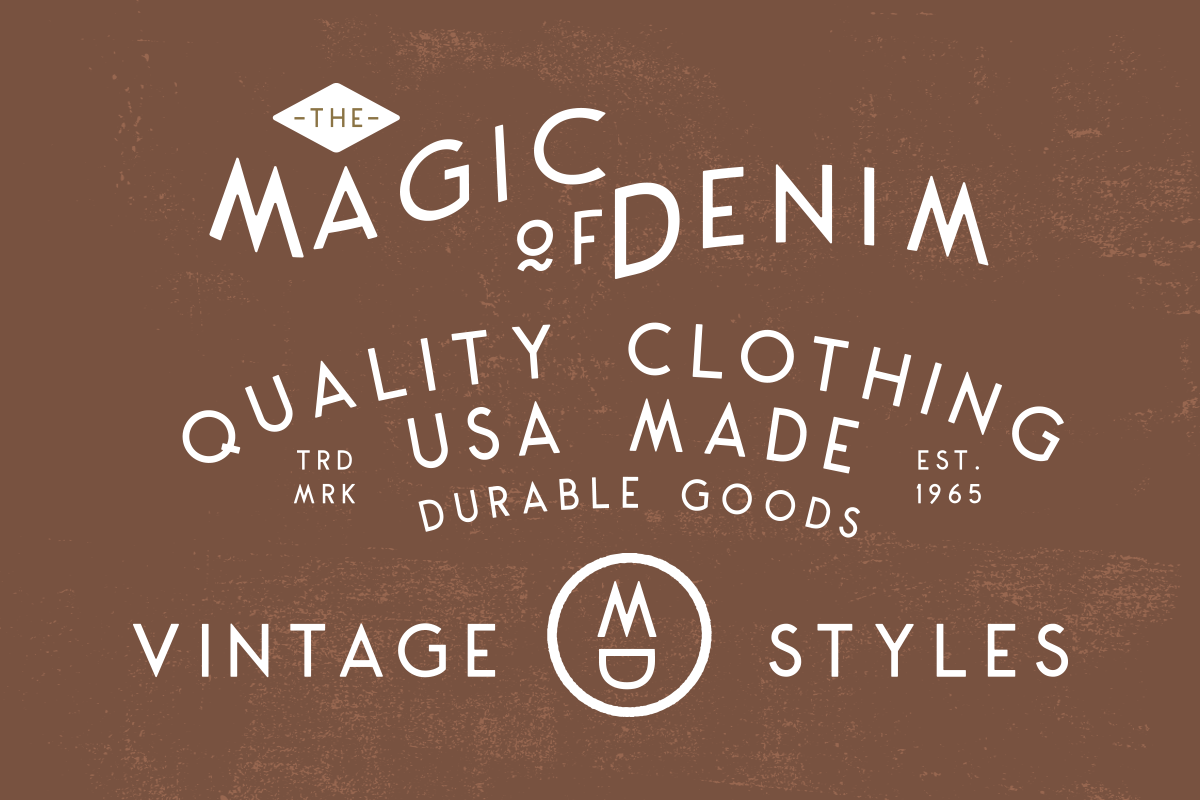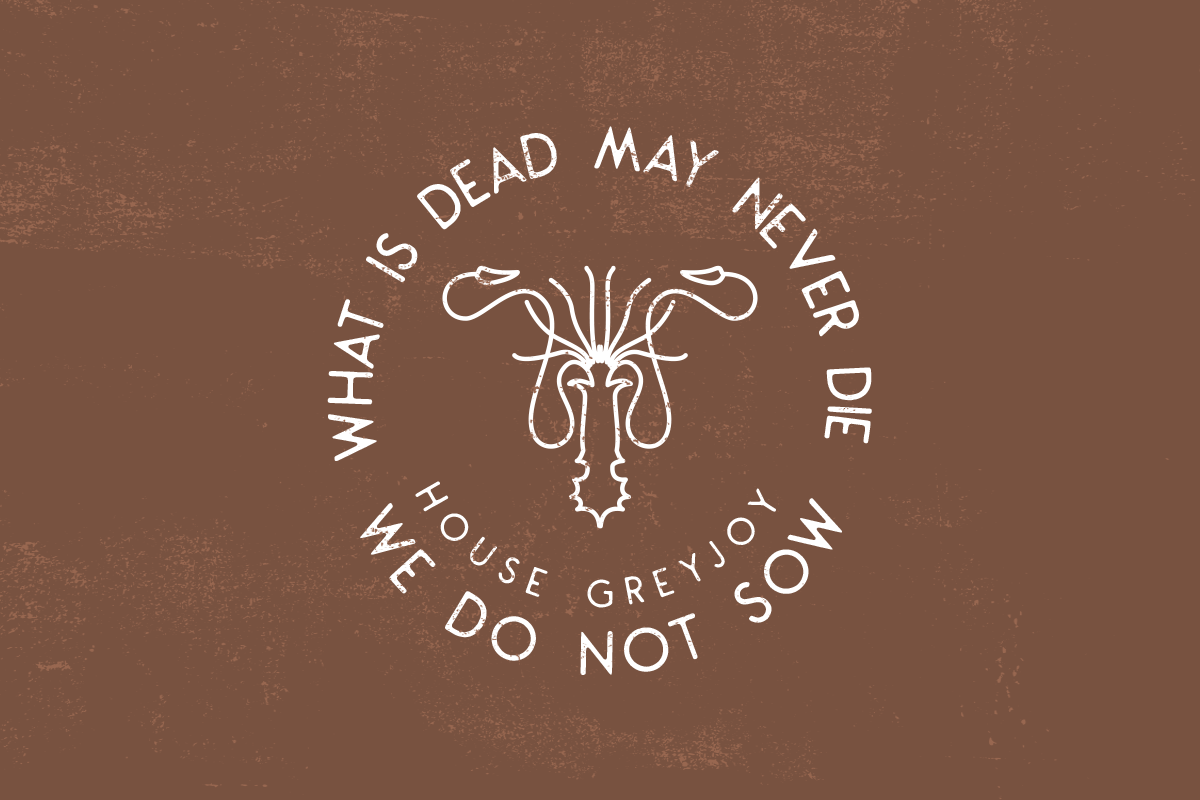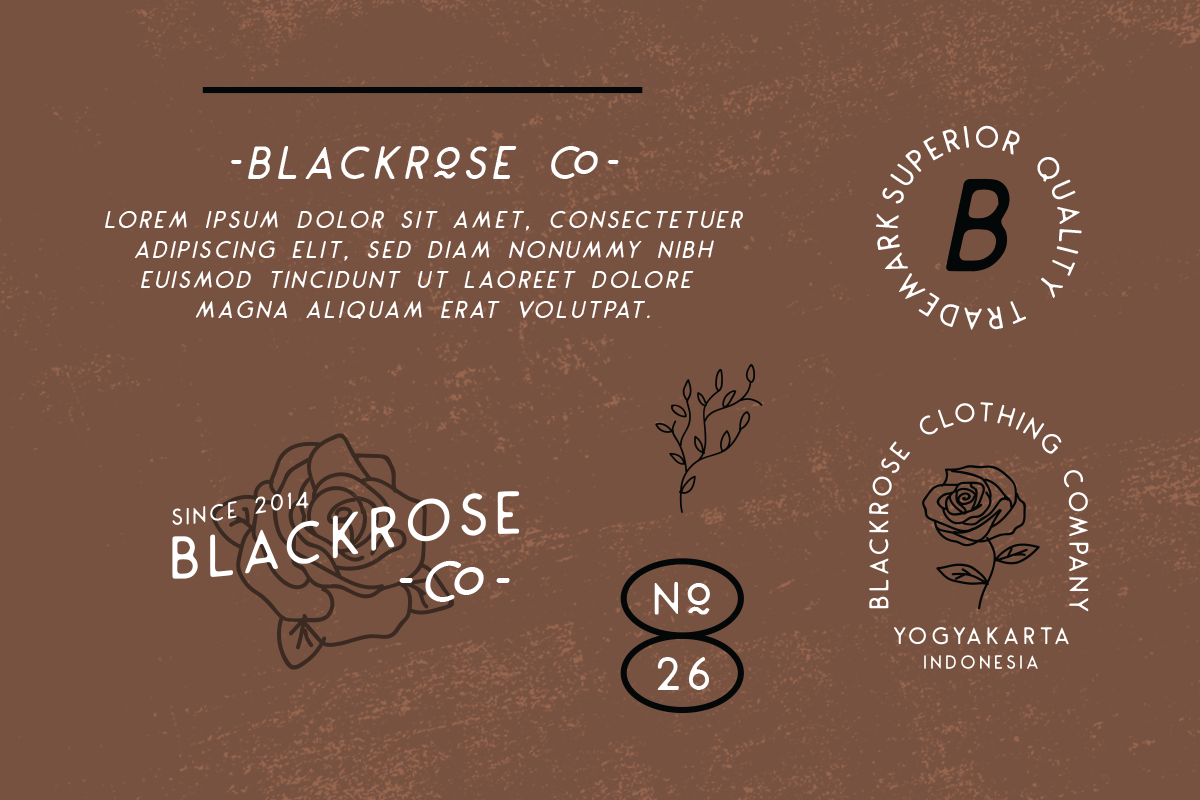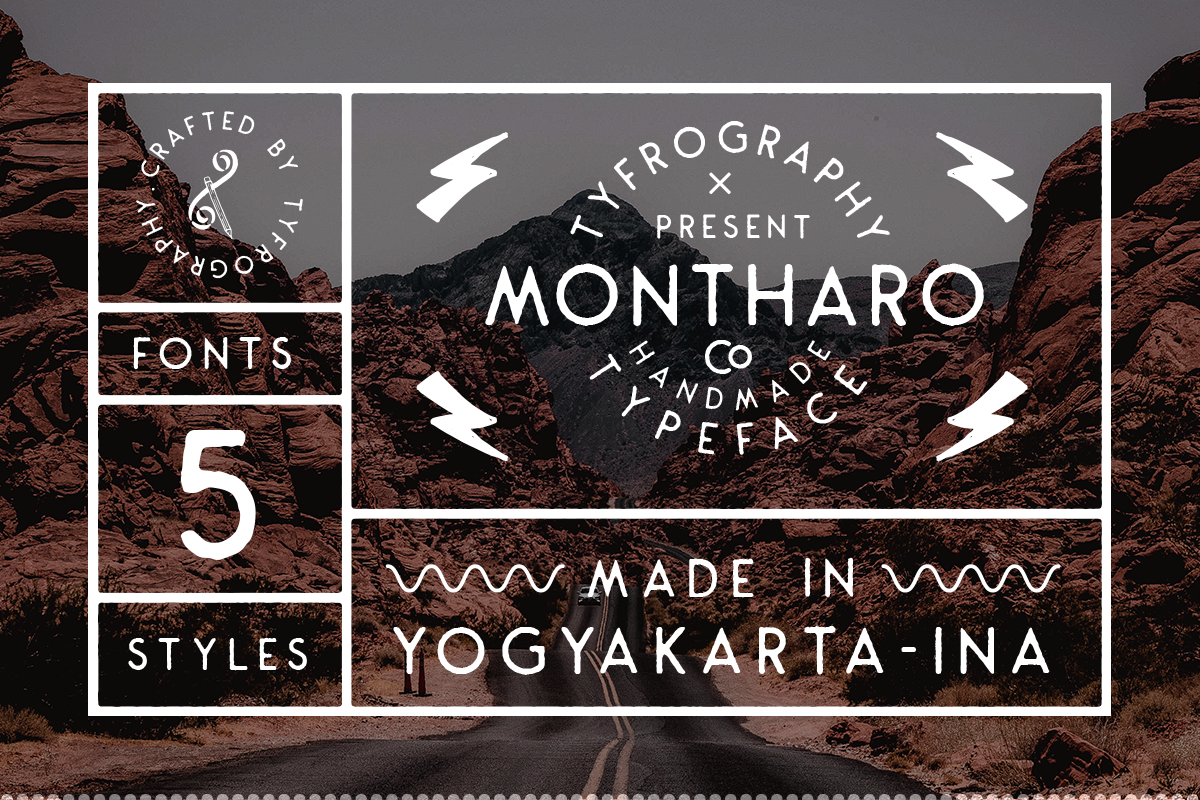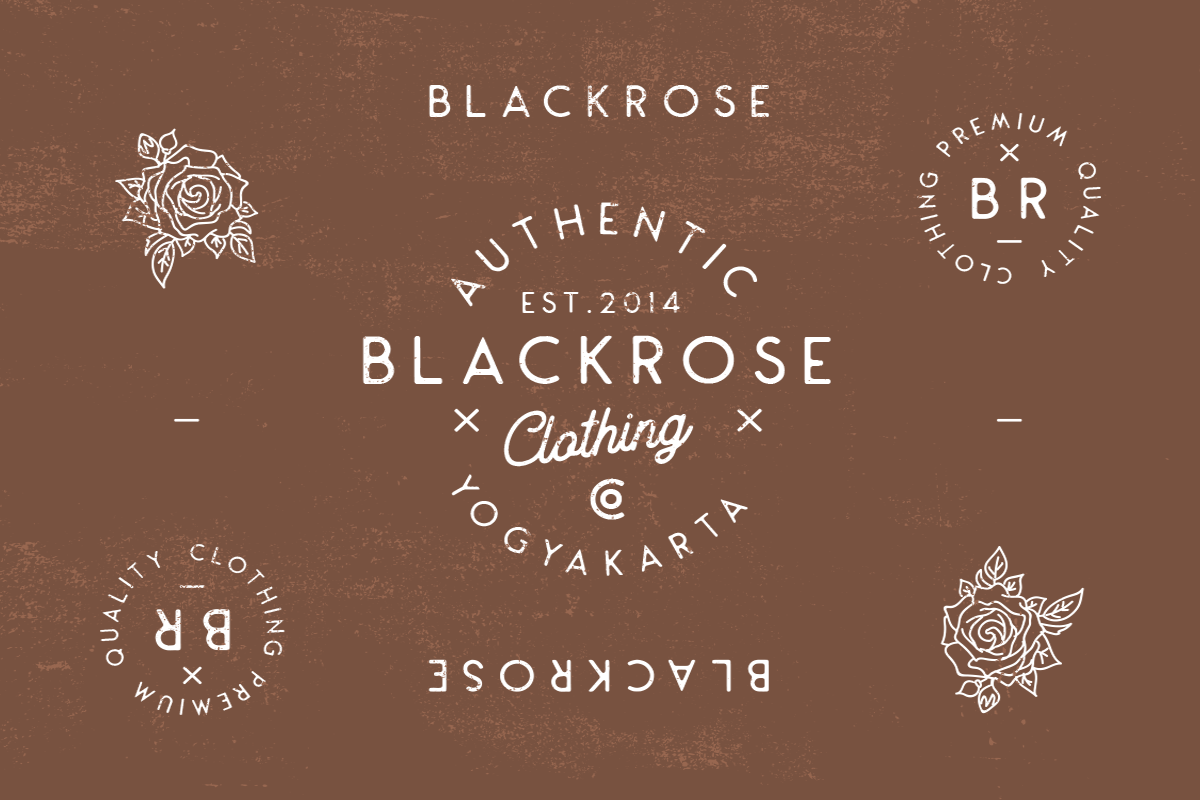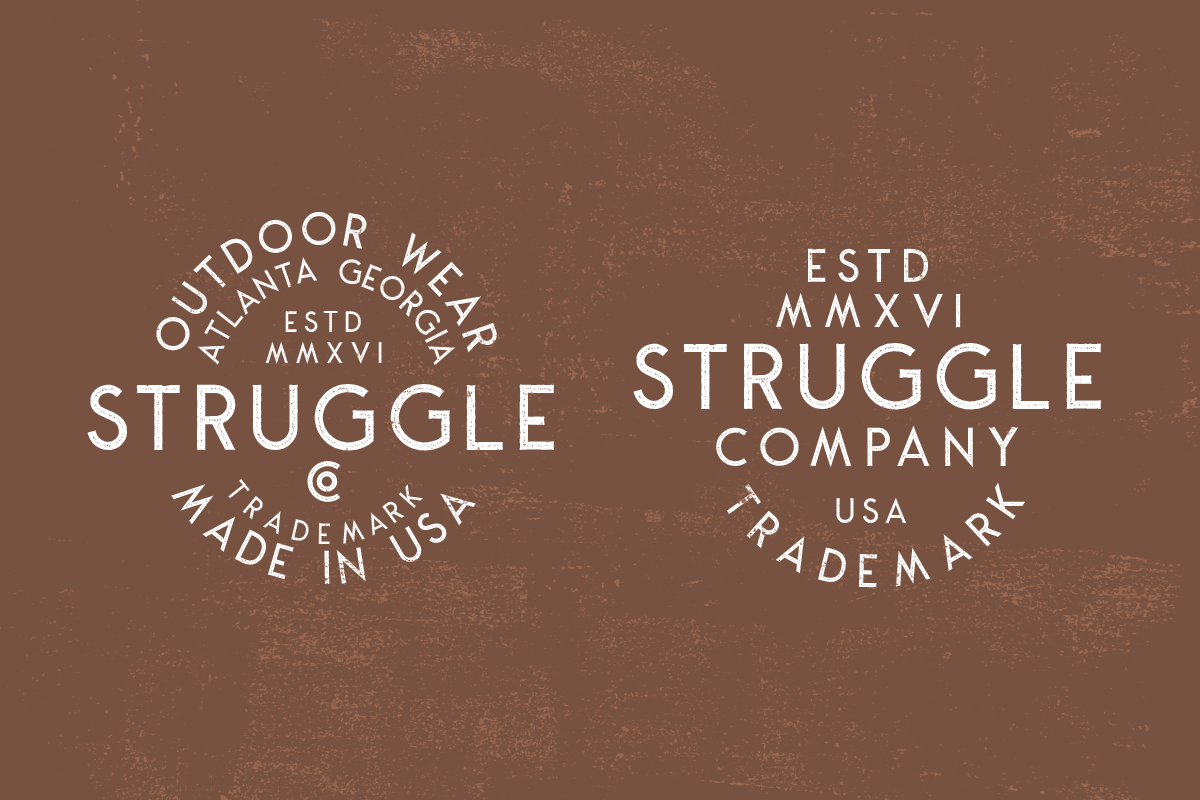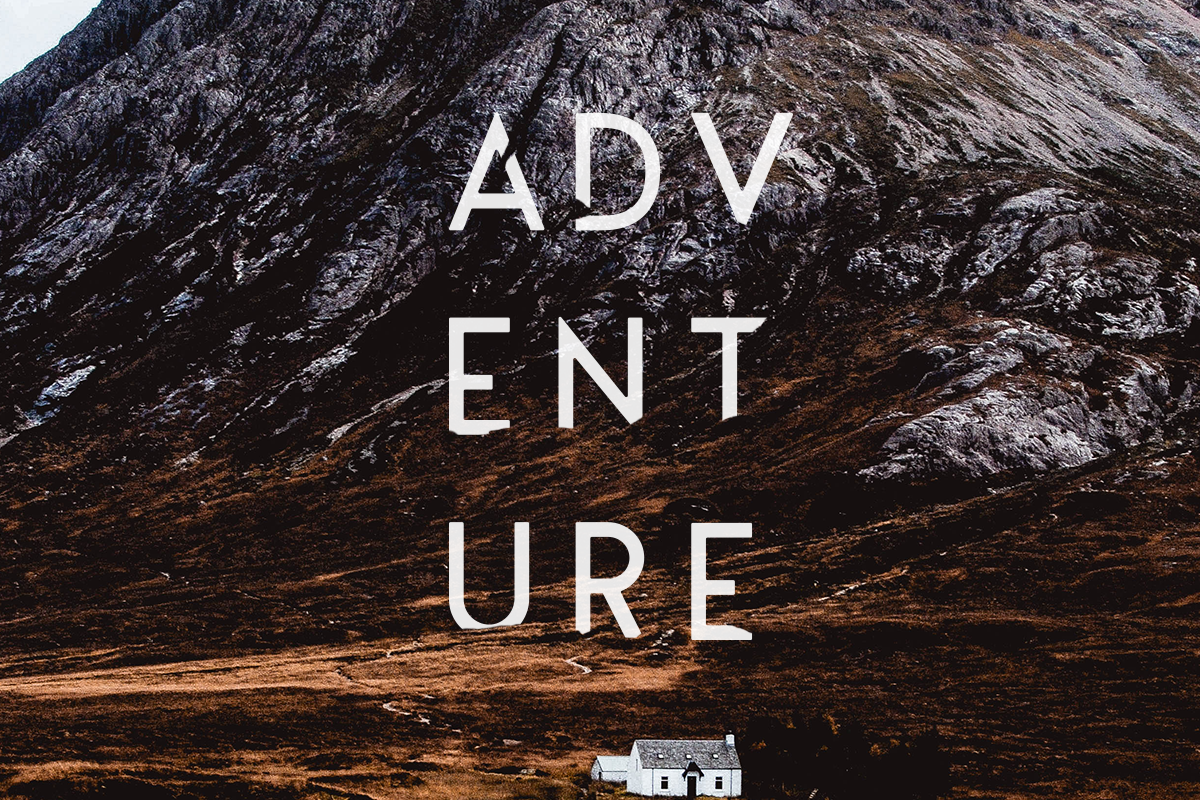
Montharo Typeface + Extras
Introducing, Montharo Typeface. A font family which has 5 font version. The character of the rough edge, inky, round and stamp verison . Everything version is suitable for vintage & retro feel.
Ligatures, stylistic alternate
Perfect for logotype, headline, apparel, poster with vintage feels.
- Ligatures, stylistic alternate
- Multilanguage
- Perfect for logotype, headline, apparel, poster with vintage feels.